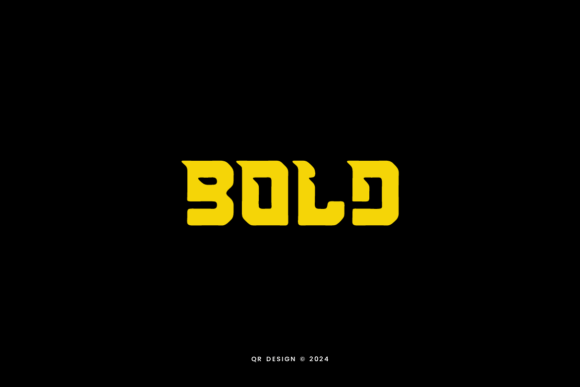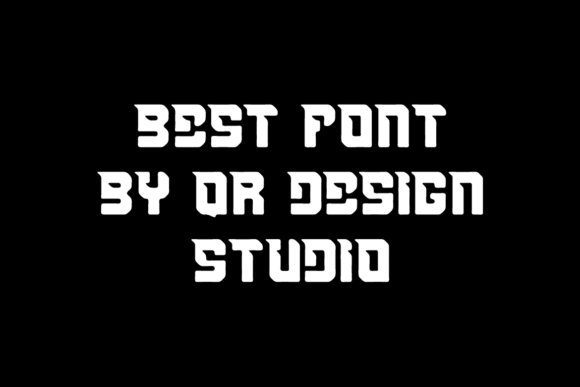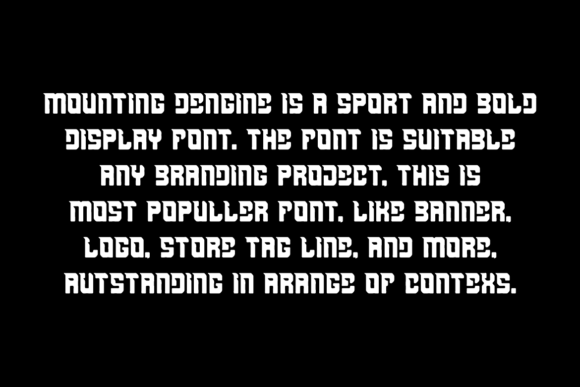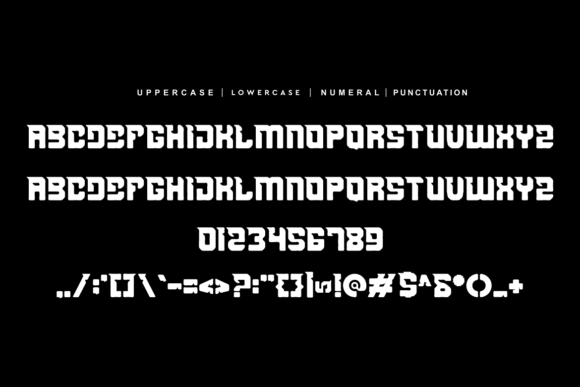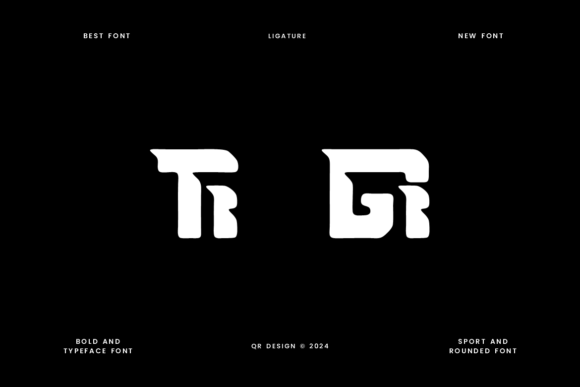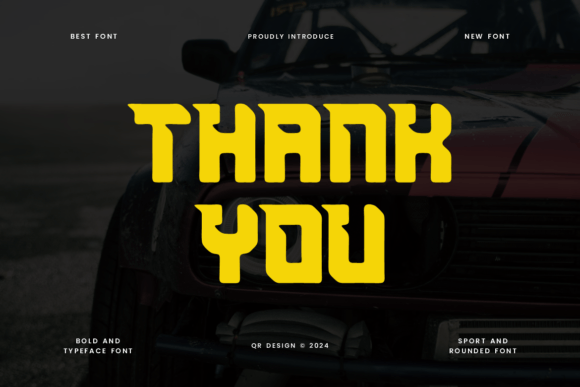
Introduction to Mounting Dengine Font
Imagine you’re staring at a blank canvas, the possibilities endless, and the only thing holding you back is the perfect font to bring your creative project to life. You search high and low, scrolling through countless options, until finally, you stumble upon it – the perfect display font that captures the essence of your vision. For designers, this moment is pure magic, and it’s exactly what Mounting Dengine Font aims to deliver.
As a bold and authentic display font, Mounting Dengine Font is the ultimate design resource for any branding project, from logos to sports and everything in between. With its high-quality design, it’s no wonder why this font is a top choice among designers looking to make a statement. Whether you’re working on a creative project with a transparent background or need a font that stands out, Mounting Dengine Font is the perfect addition to your design arsenal.
Key Features of Mounting Dengine Font
- High-quality font with a unique, creative design perfect for various projects, including graphic design, web design, and digital art.
- Comes with a transparent background, making it easy to use with any design or image.
- Unique characteristics include intricate details and a bold, eye-catching design, making it perfect for titles, headings, and other prominent text elements.
- Designed to be versatile, allowing users to experiment with different font sizes, colors, and combinations to achieve a unique look.
Honest Review: Mounting Dengine Font
- ✨ High-quality design: The Mounting Dengine Font is incredibly detailed and visually appealing, making it perfect for any design project.
- ✨ Transparent background: This feature allows for seamless integration with any design element, giving me complete creative control.
However, there are a few limitations I’ve encountered:
- ⚠️ Limited font weights: The Mounting Dengine Font only comes in a few font weights, which can make it difficult to achieve the desired level of contrast in certain designs.
- ⚠️ Limited language support: This font only supports a few languages, which can be a problem for projects that require multilingual support.
Overall, I’m really impressed with the Mounting Dengine Font. It’s a great addition to any designer’s toolkit, and its high-quality design and transparent background make it a valuable resource for any creative project.
Tips for Getting the Most Out of Mounting Dengine Font
To get the most out of the Mounting Dengine Font, use it in conjunction with other design resources, such as high-quality images or graphics. Experiment with different font sizes and styles to add visual interest to your design project.
Common Use Cases for Mounting Dengine Font
The Mounting Dengine Font is suitable for a variety of design projects, including logos, business cards, and brochures. It’s also a great choice for creative projects that require a unique and eye-catching font.